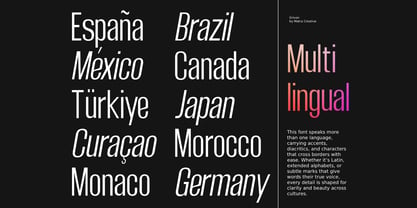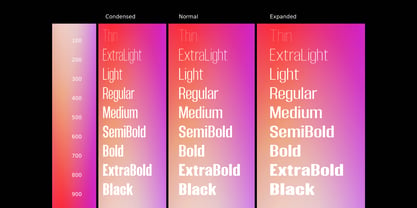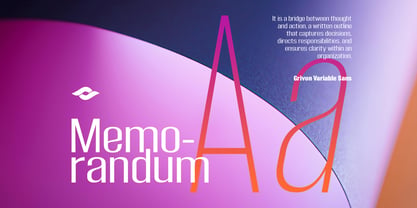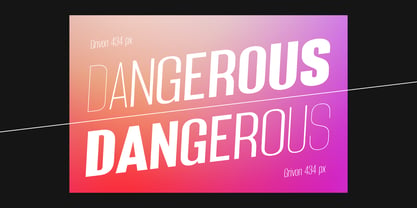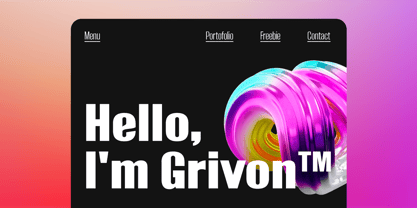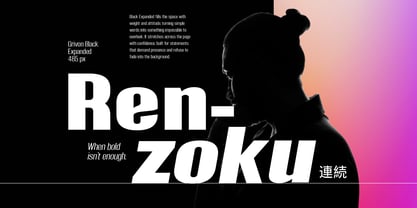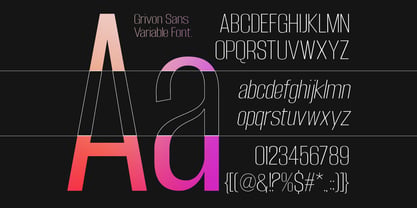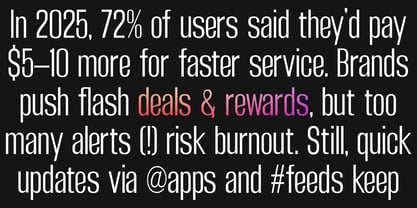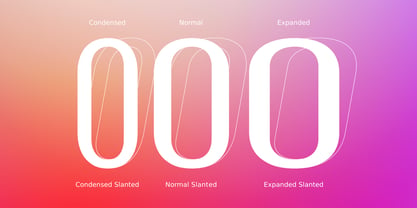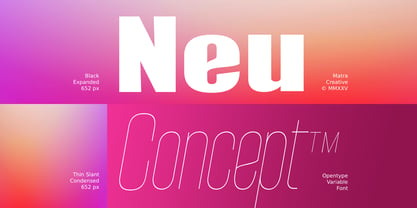
Grivon
by Matra Creative
The Grivon Font Family was designed by May Adifarzan muis and published by Matra Creative. Grivon contains 165 styles and family package options. More about this family
Grivon is a variable sans-serif font family designed for maximum adaptability and visual impact. With 9 weights, 3 widths, and 3 styles across three axes—Weight, Width, and Slant—Grivon offers 54 distinct styles and infinite possibilities through its variable format. Crafted by Matra Creative, Grivon balances geometric clarity with subtle humanist touches, making it ideal for branding, UI design, editorial layouts, and motion graphics. From ultra-condensed Thin to wide Black Italic, every style maintains consistent rhythm and legibility. Grivon supports Latin Extended characters and includes a full set of symbols, punctuation, and numerals. Whether you're building a minimalist identity or a dynamic typographic system, Grivon adapts to your creative needs with precision and personality.
Designers: May Adifarzan muis
Foundry: Matra Creative